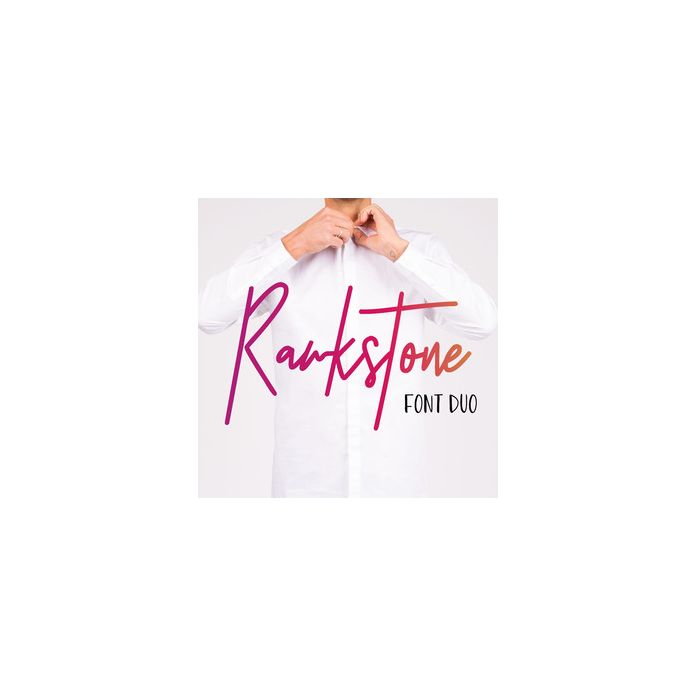
Rawkstone is the perfect signature style font to set your designs apart. Plus it comes with international language support and other bonus glyphs. Also includes a sans and alternate version.